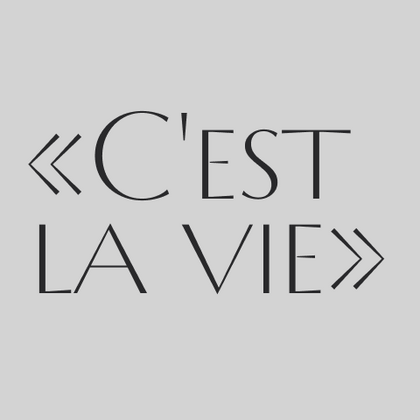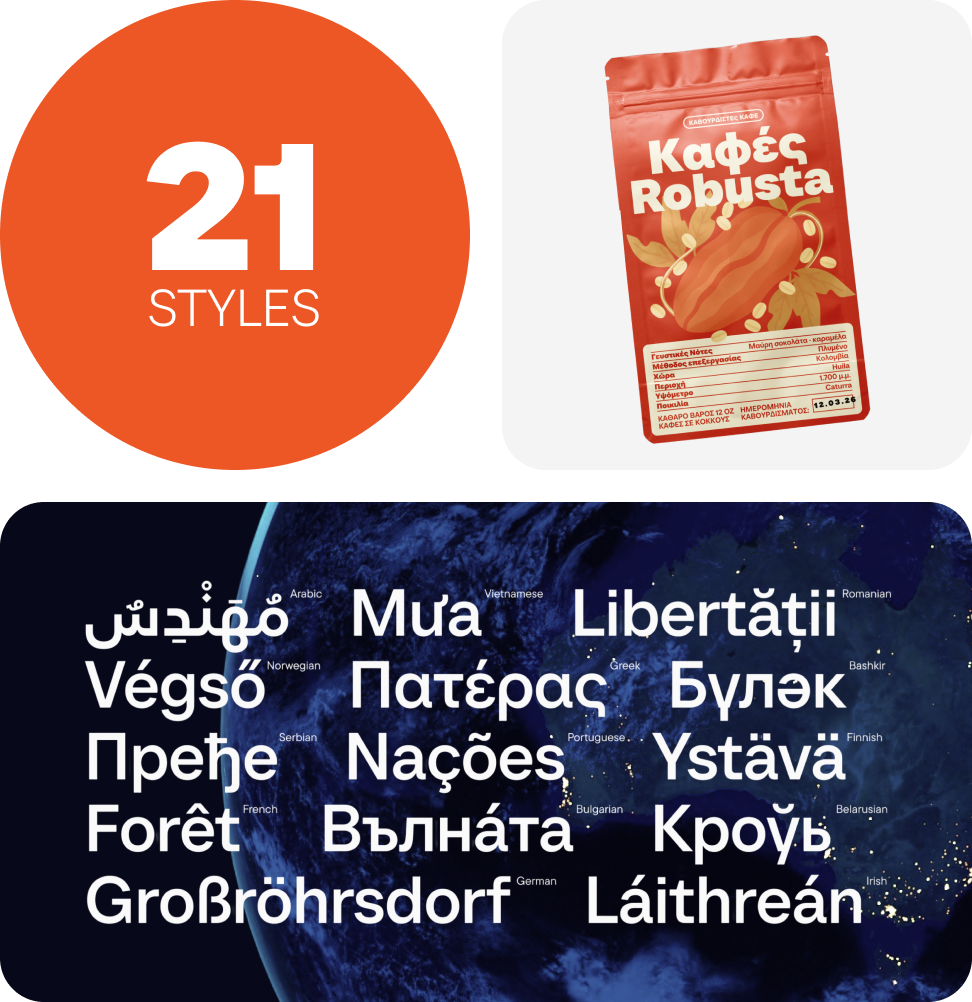
For quotes Fonts
Typography enhances the emotional impact of words, making fonts for quotes a powerful design choice. Distinguished by refined proportions, moderate stroke contrasts, and timeless elegance, these typefaces emphasize the significance of the text. The TypeType catalog features classic calligraphic styles with delicate flourishes as well as modern interpretations, ensuring impeccable readability while beautifully conveying sentiment.
TT Polihaus is an experimental sans serif that, at first glance, looks ordinary, but then breaks apart, transforming into a stencil pattern.
TT Odellia is an old-style serif with a modern design, inspired by Venetian typefaces and classical music.
TT Regins is a Scottish modern serif. Striking contrast and sharp triangular serifs give this font a stern and commanding character, while refined forms, enlarged lowercase letters, and slightly condensed, static proportions add grace to its design.
TT Moons is a slim and contrast serif. This font family works especially smart in classic design themes. TT Moons is a typeface of the glyptal modern typeface.
TT Firs Neue is a contemporary reincarnation of the good old TT Firs sans serif.
TT Gentlemens is a dynamic handwritten typeface that combines the seriousness and precision in writing with elegance and sophistication. It has the character and style of a true gentleman: restrained and always appropriate, yet confident and striking.
TT Ramillas is a contemporary serif with editorial versatility. It features decorative styles and ornamental initials with floral motifs.
TT Gertika is a geometric sans serif with a dynamic character and a dancing rhythm. This font`s idea originates from the lettering featured on an American poster from the late 1930s.
TT Biersal is a display sans serif with a free-spirited, playful, and adventurous nature. The concept of this font was sparked by a German poster from the early 1930s.
TT Cometus is an expressive typeface that captivates from the first time.
TT Carvist—peculiar, playful, and courageous—this font does an excellent job of grabbing attention!
TT Espina is a display antiqua with expressive serifs
TT Smalls is now a decorative font that makes it easy to attract attention.
TT Marxiana Elzevir is a title or header font and is a compilation of monastic Elzevir that were actively used in the Niva magazine for all its prints.
TT Polls is the modern modular slab serif family for using in sports-related design.
TT Berlinerins is a grotesque inspired by the wood-type poster types of the first third of the 20th century is responsible for the historic component of Berlin.
TT Milks is a Collection of typefaces for branding
TT Octas is a narrowly proportioned font family built upon the principle of octagonal forms: all circles in this typeface are actually octagons. Thanks to small serifs, TT Octas has a vintage character to it.
TT Prosto Sans is a font family for any tasks. You can use this font almost everywhere.